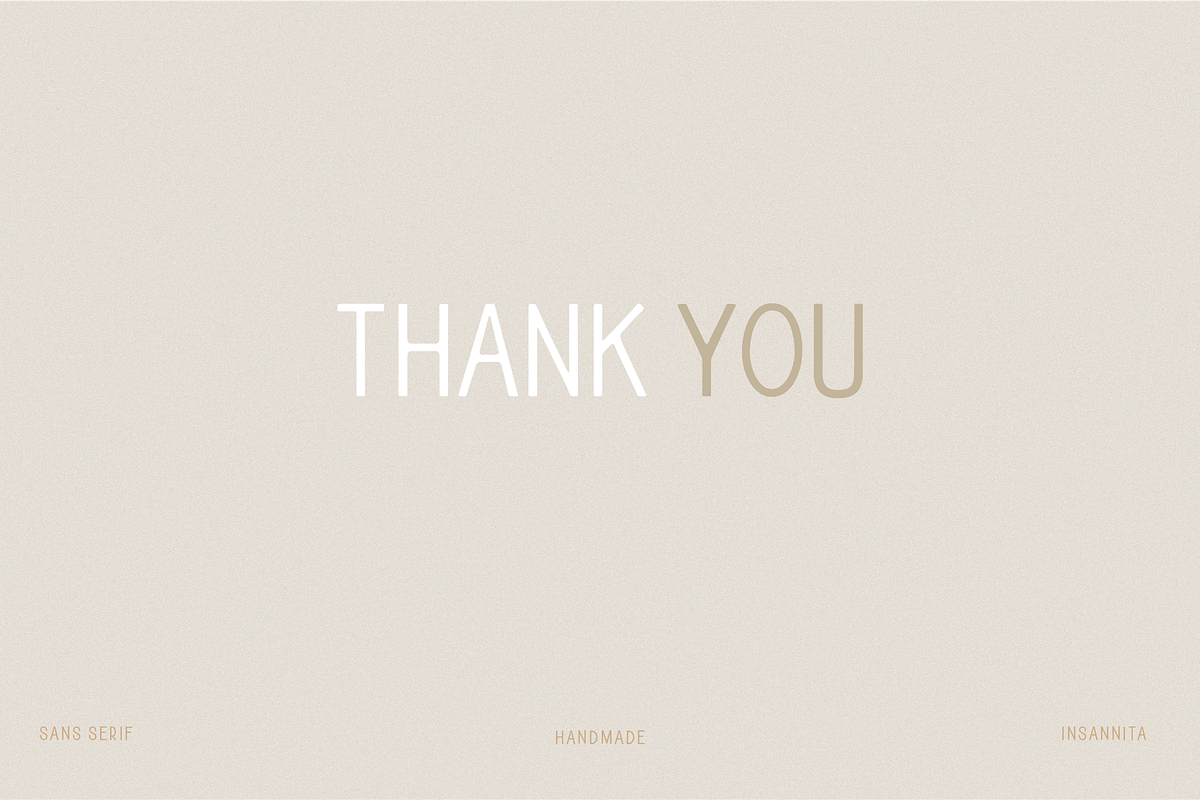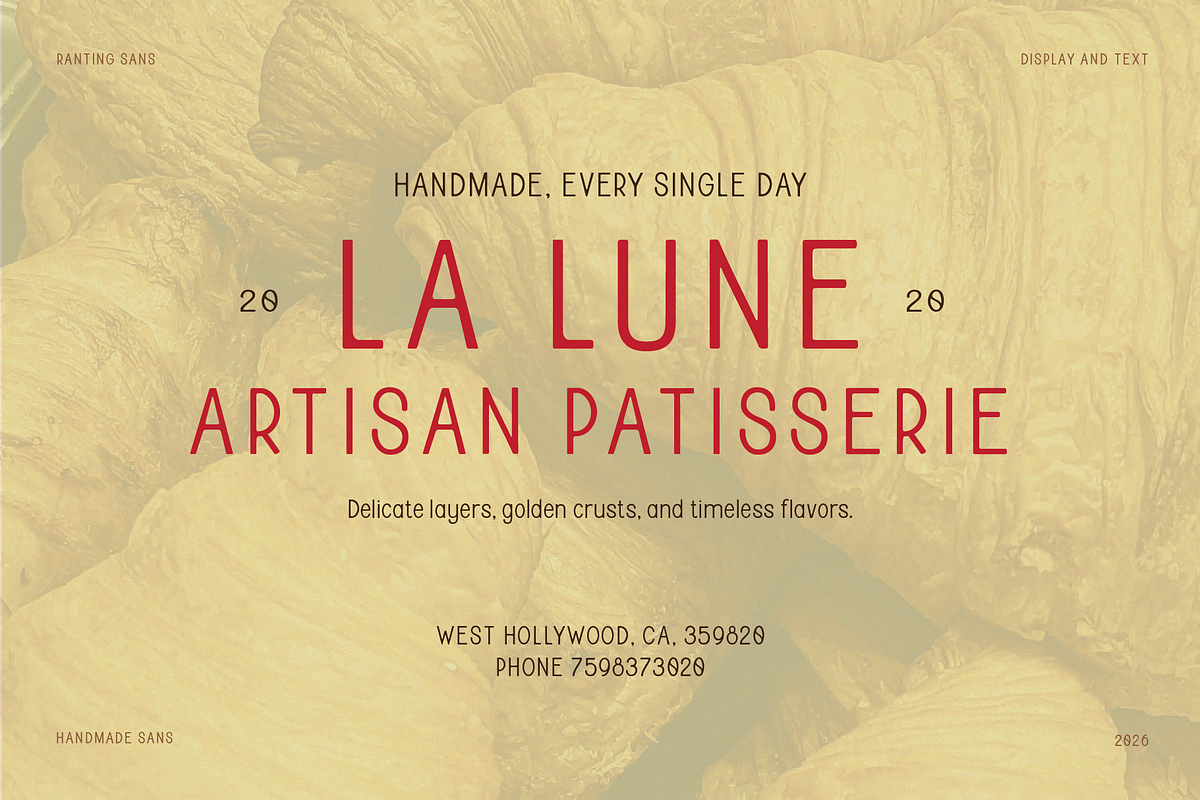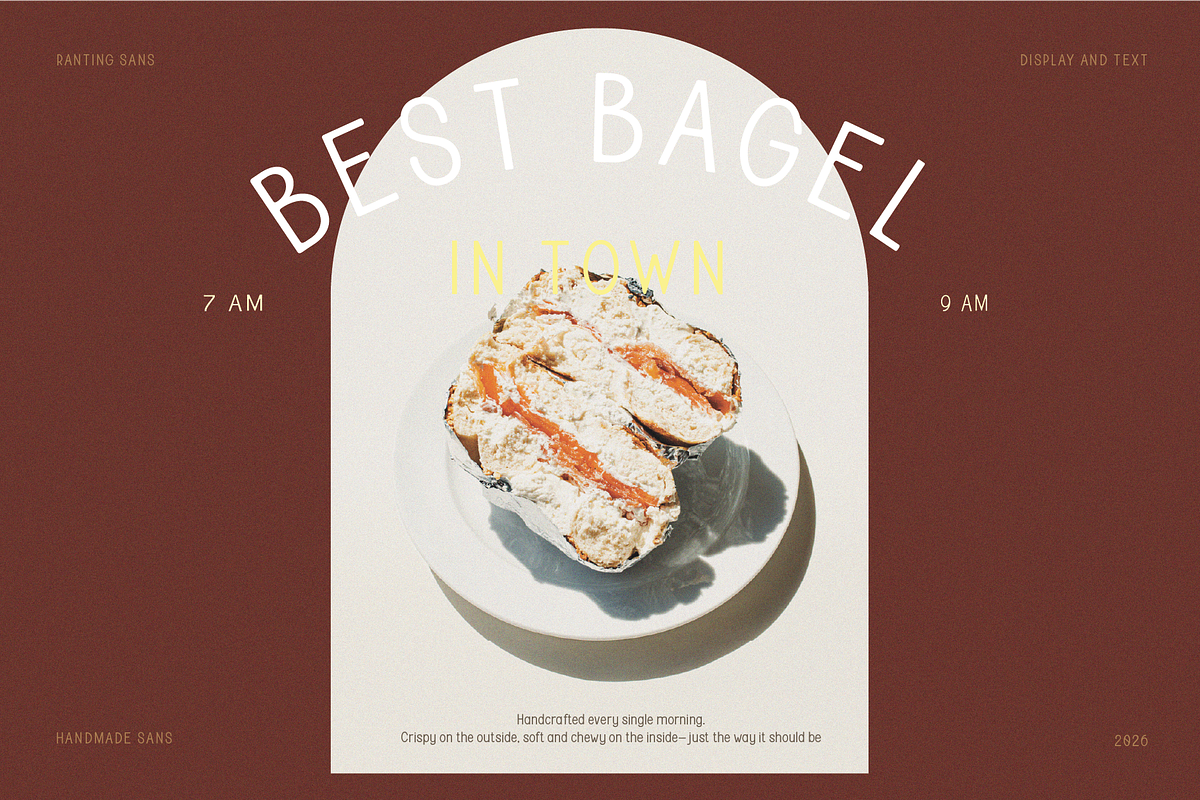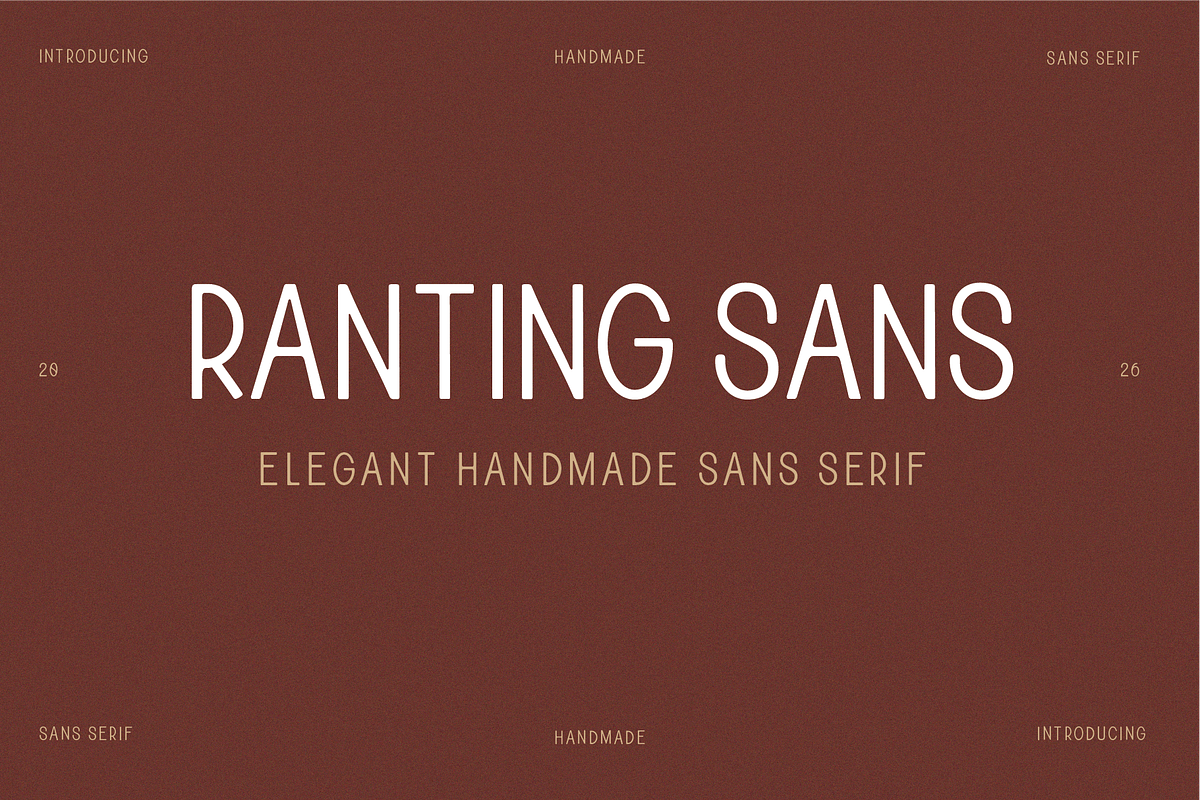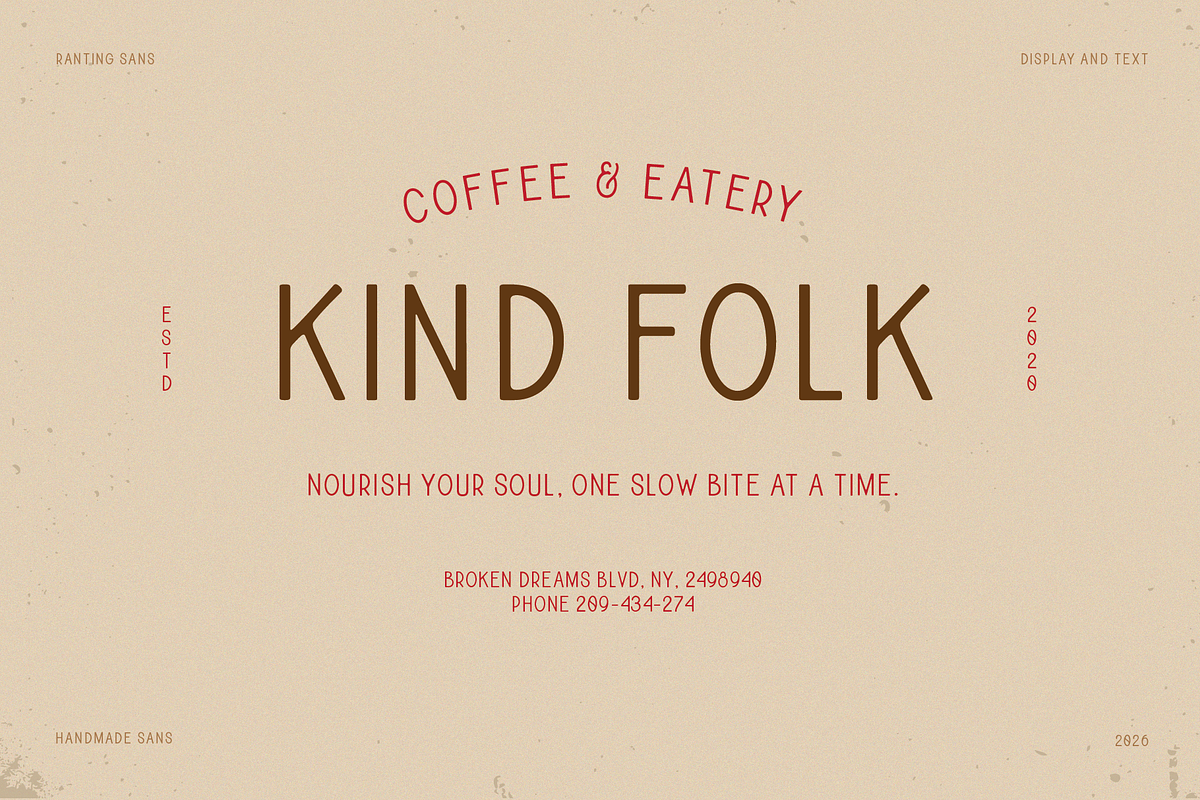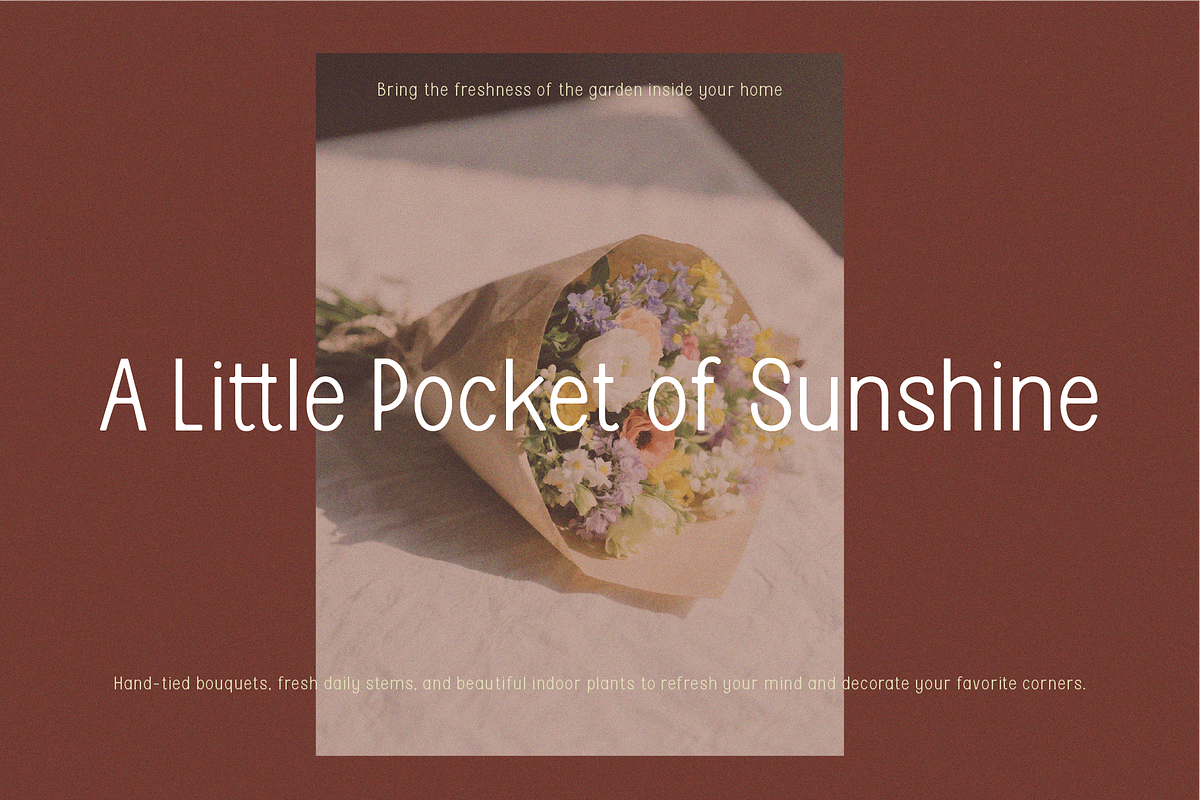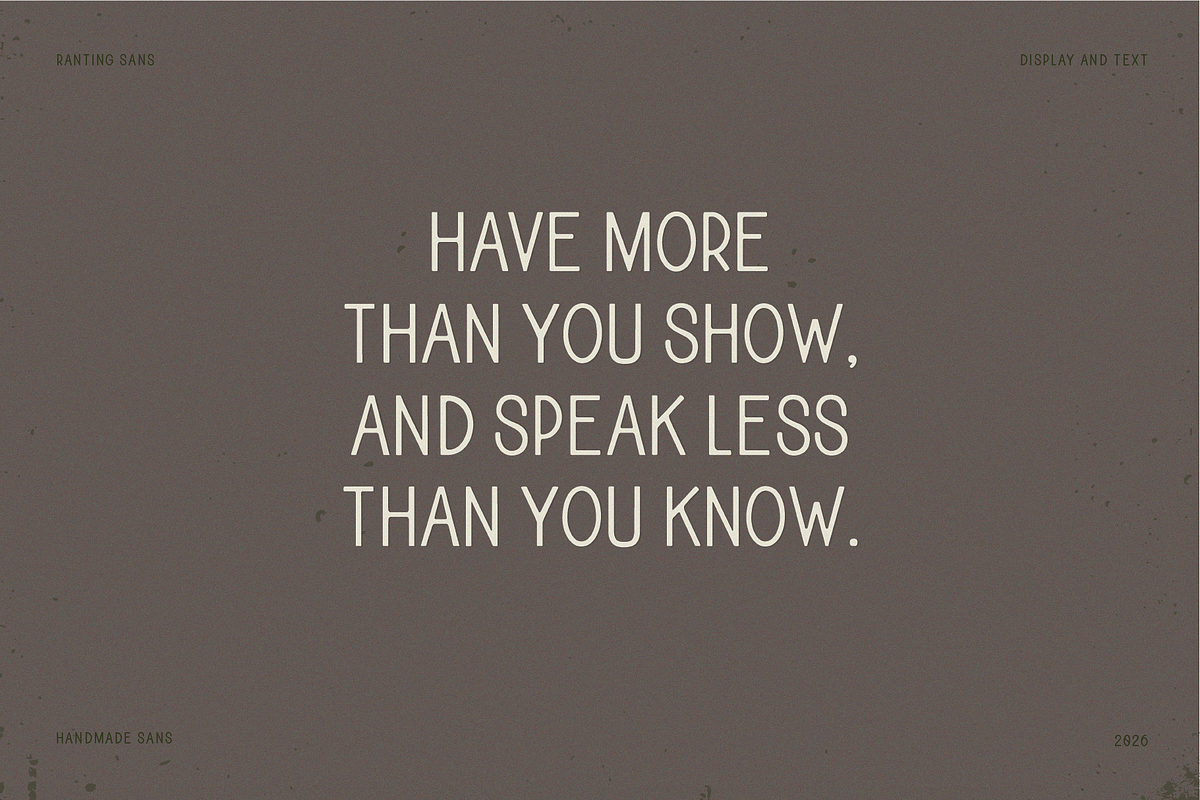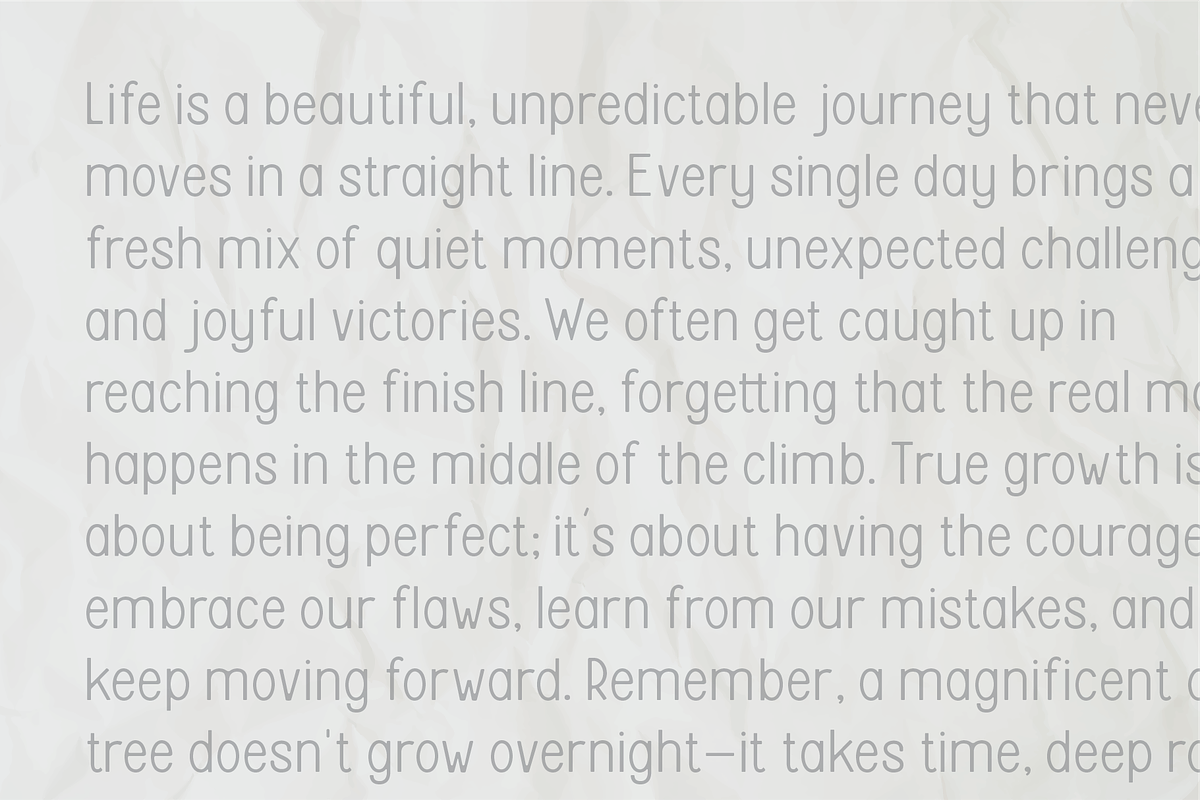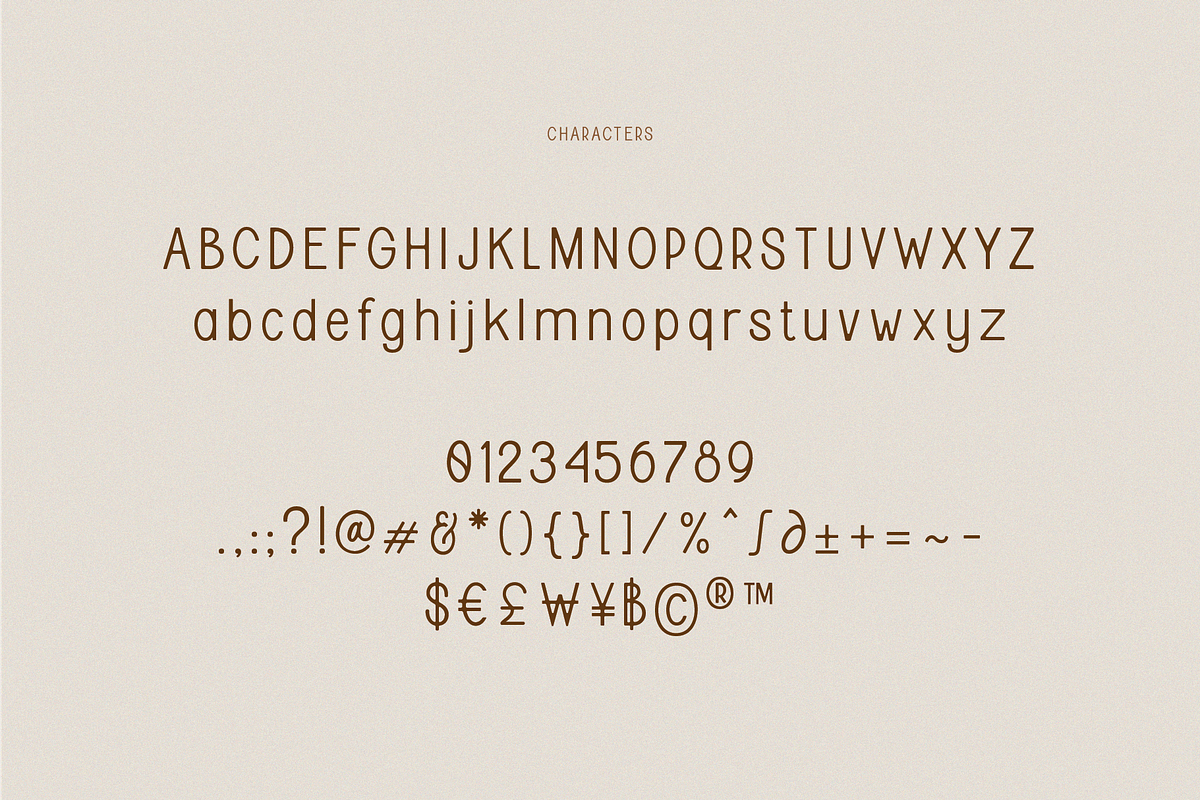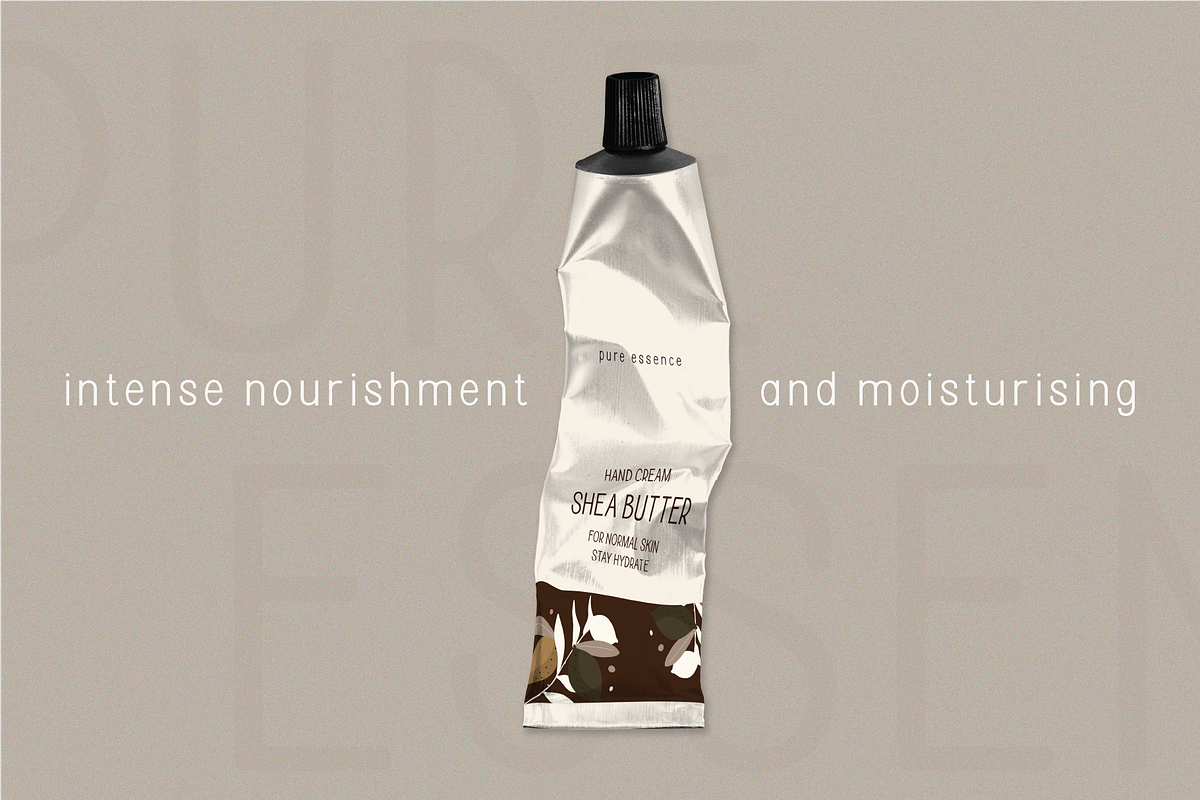
RANTING SANS | HANDMADE
Ranting Sans is a handmade sans-serif font that inspired by leave branch. This font captures a huge range for the design and creation of your project. With Ranting Sans you can create logos, labels, use in advertising, packaging, branding, book covers and magazines, cosmetics, banners, posters, headings, descriptions and much more.
Support for Basic Latin.